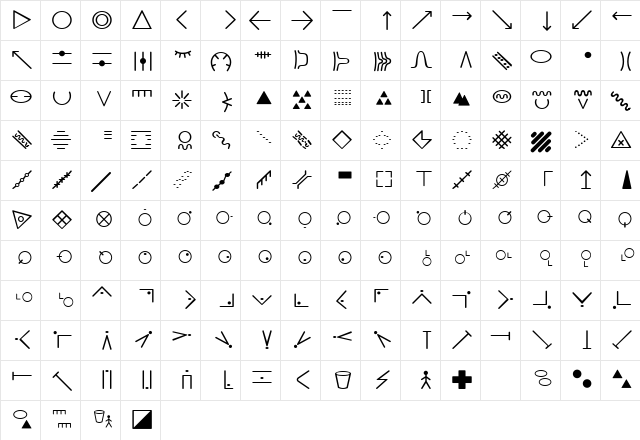
Orienteering Regular
Design Context for Orienteering Typeface
Orienteering is a composed and adaptable typeface that performs quietly and consistently across a wide range of design contexts.